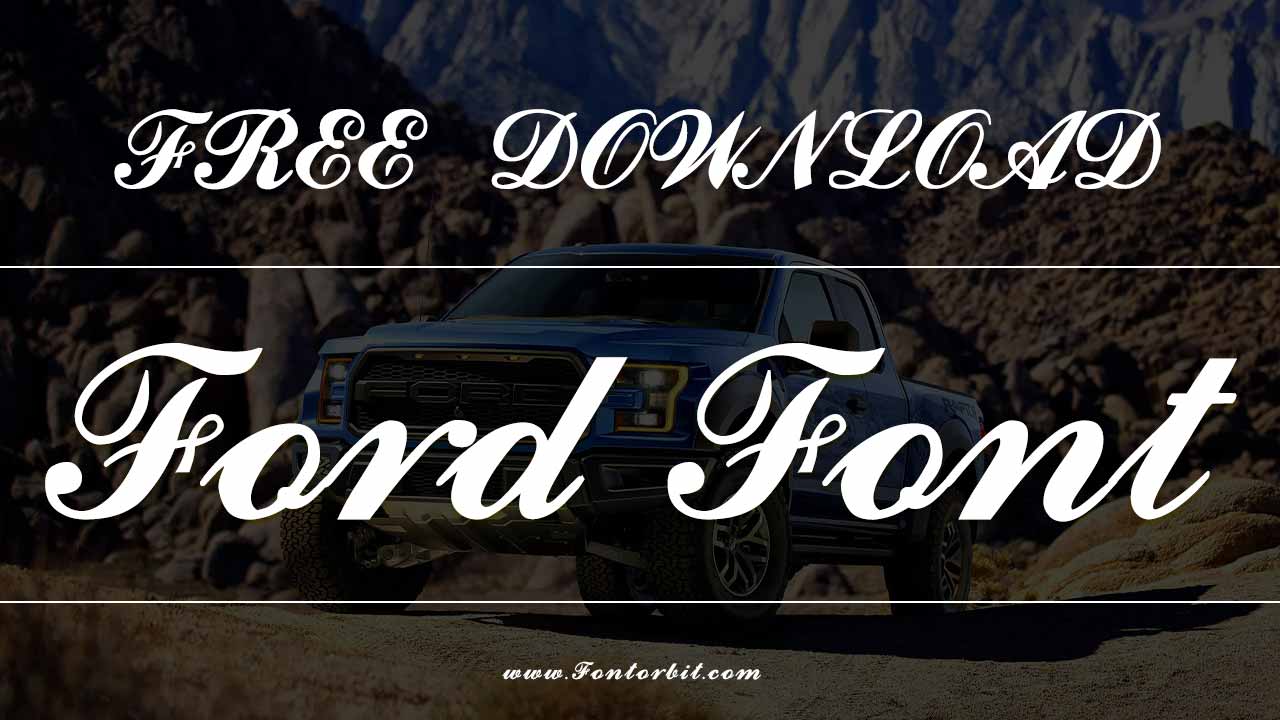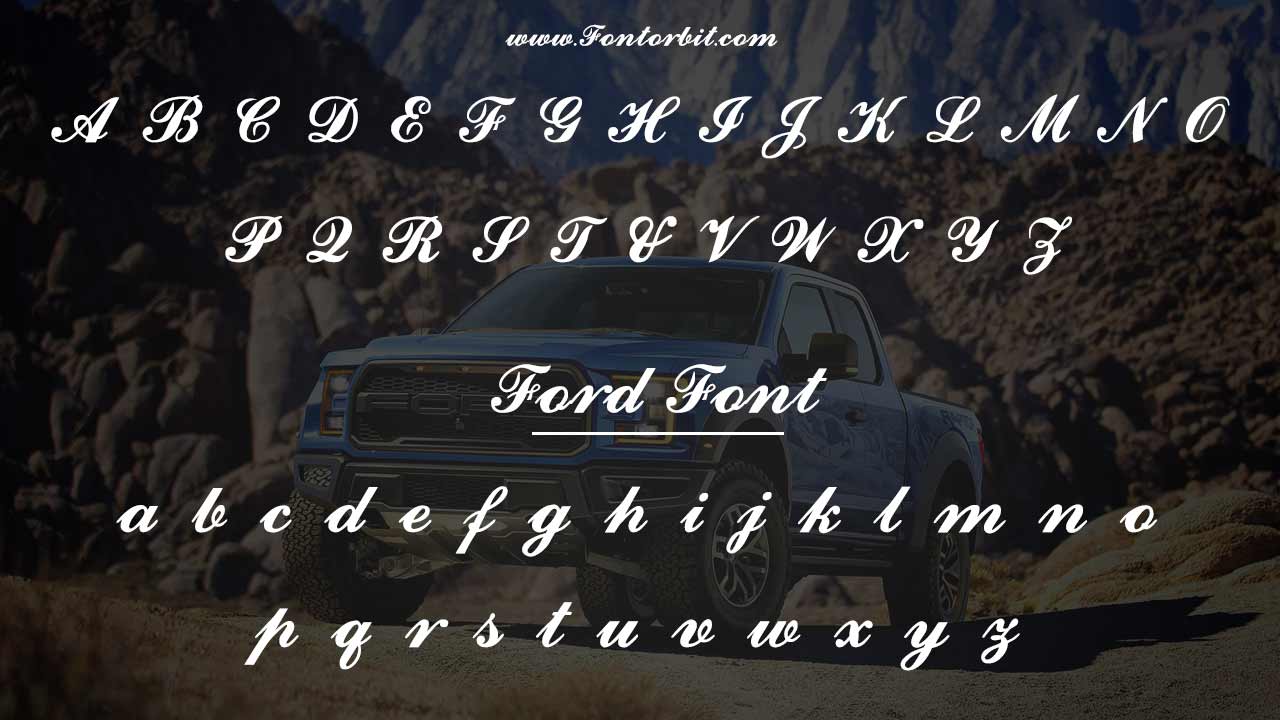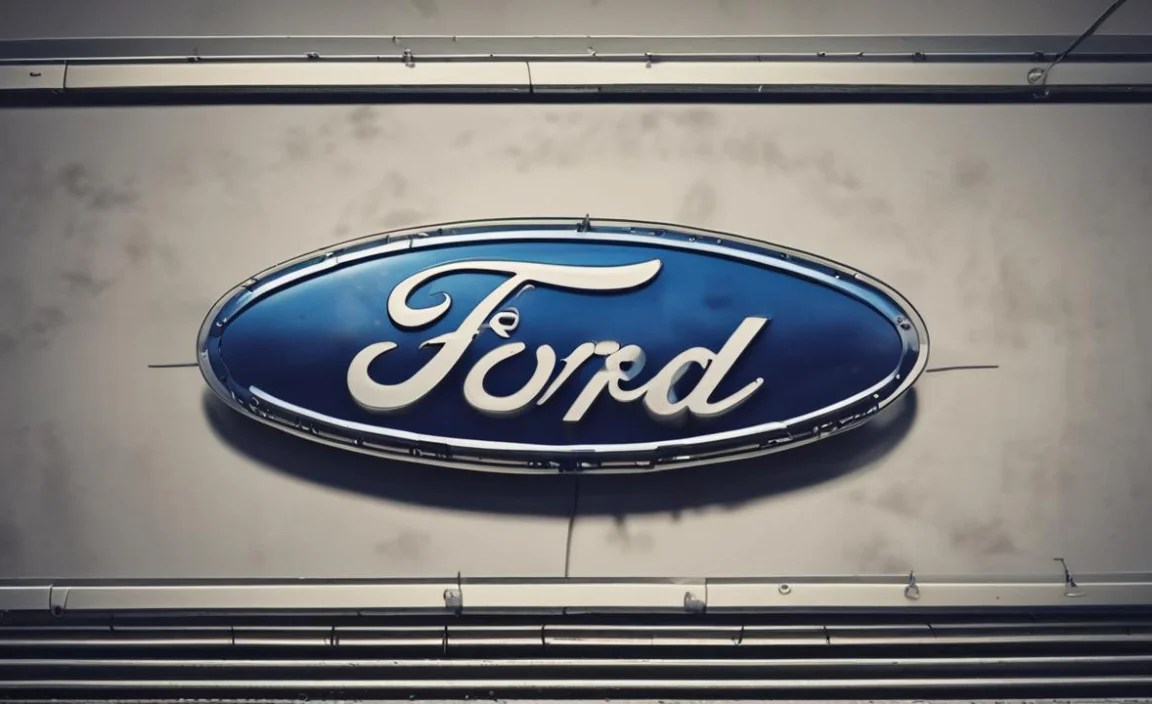
The Ford Font is an iconic typeface that embodies the spirit of the Ford Motor Company. Created to reflect the brand’s heritage and quality, it is widely recognized in the automotive industry. The font has become synonymous with the Ford logo, capturing the essence of innovation since its inception by Henry Ford in 1903.
Ford Font Information
| Name | Ford Font |
| Style | Script |
| Designer | C. Harold Will |
| Type | Display Font |
The History Of The Ford Font
The Ford Font has a rich history that reflects the evolution of the Ford Motor Company. The current Ford logo, known as the Centennial Blue Oval, was introduced in 2003 to commemorate the company’s 100th anniversary. The logo features a blue oval shape, with Ford Font elegantly scripted in white, representing the brand’s commitment to quality and innovation.
Design And Aesthetics
The Ford Font features flowing script lettering, giving it a fancy and sophisticated appearance. Its color palette primarily consists of blue, symbolizing trust and reliability, which are core values of the Ford brand. The font’s characters are designed to flow seamlessly, creating a sense of movement akin to the vehicles they represent.
Ford Font Family Includes
- Ford Script
- Ford Antenna
- Ford Brawn
Where Ford Font Is In Use
- Ford Motor Company branding
- Advertising materials for Ford vehicles
- Merchandise and promotional items
- Automotive events and exhibitions
- Websites and online content related to Ford
Similar Fonts And Typefaces
While Ford Font is distinctive, several similar fonts can evoke the same aesthetic. Examples include
- Brush Script
- Freestyle Script
- Zapfino
The Ford Font is more than just a typeface; it symbolises the Ford brand’s heritage, quality, and innovation. Its elegant design and history play a vital role in how consumers perceive Ford vehicles and the company itself. As the automotive industry evolves, the Ford font remains a steadfast representation of the brand’s commitment to excellence and reliability.
1.What Is The Ford Font Called?
The Ford font is known as Ford Font and is used in the Ford logo.
5.How Has The Ford Logo Changed Over The Years?
While the logo has undergone minor modifications, its core elements, such as the blue oval and Ford Font, have remained consistent.